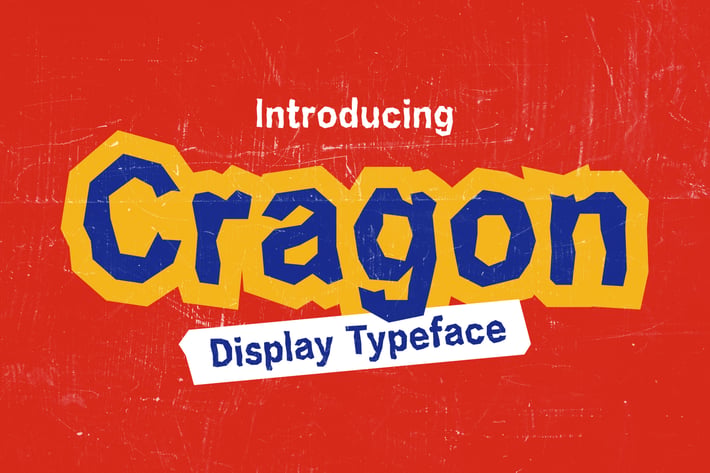
Cragon Display Typeface - ZD
Cragon is a fun and quirky display typeface with a playful, hand-crafted look. Inspired by cut-out paper shapes and childlike creativity, it brings an energetic and vibrant feel to any design. Its irregular edges and bold letterforms make it perfect for kids-themed projects, posters, packaging, book covers, and anything that needs a dose of fun and imagination. With a touch of vintage texture, Cragon also works well in retro or DIY-style visuals.
- Handcrafted, playful display style
- Irregular shapes with a dynamic feel
- Uppercase & Lowercase: Versatile for different design needs
- Perfect for: Branding, posters, editorials, and more